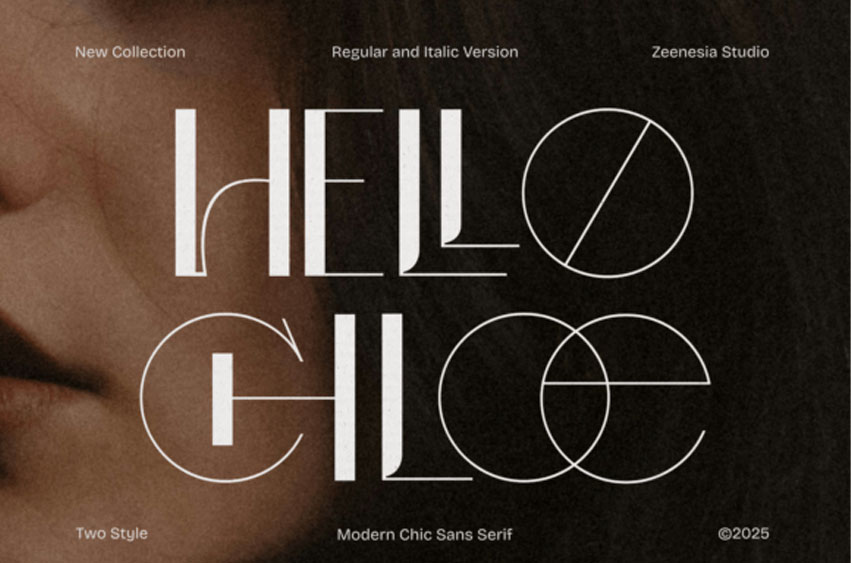
Hello Chloe Font
Hello Chloe Font is a refined sans serif font that exudes elegance in every stroke. With its thin and modern design, this font offers a minimalist yet distinctive character.
The uniqueness of Hello Chloe lies in its two variations: Regular and Italic, providing versatility for various design projects.